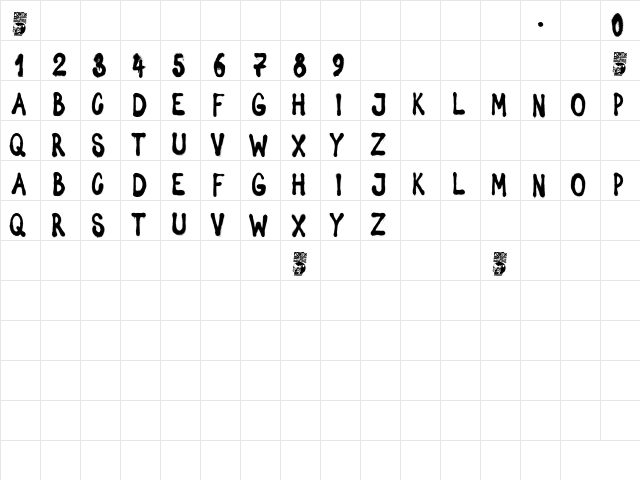
Spray Letters Regular
| Designer | Woodcutter Manero |
Design Context for Spray Letters Typeface
Spray Letters is a composed and adaptable typeface that performs quietly and consistently across a wide range of design contexts.